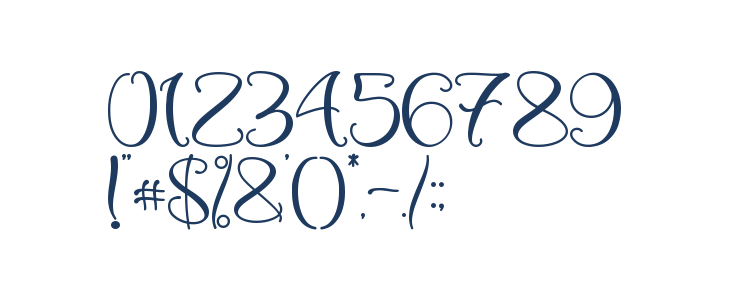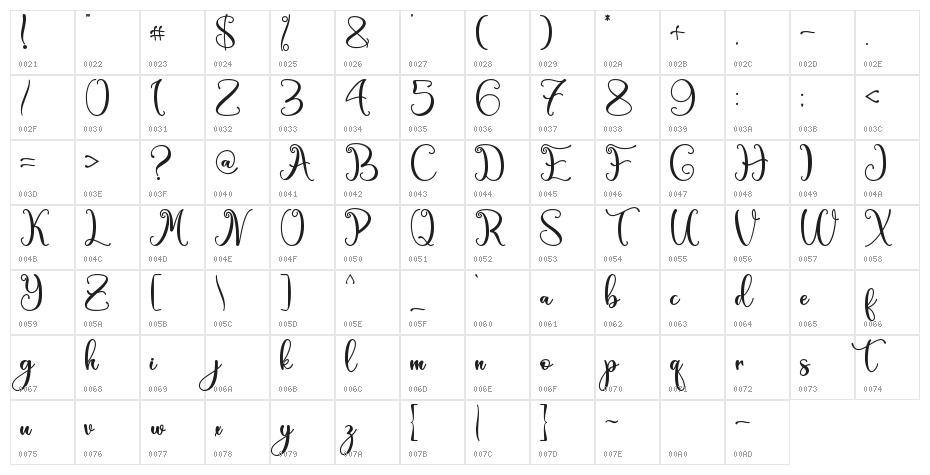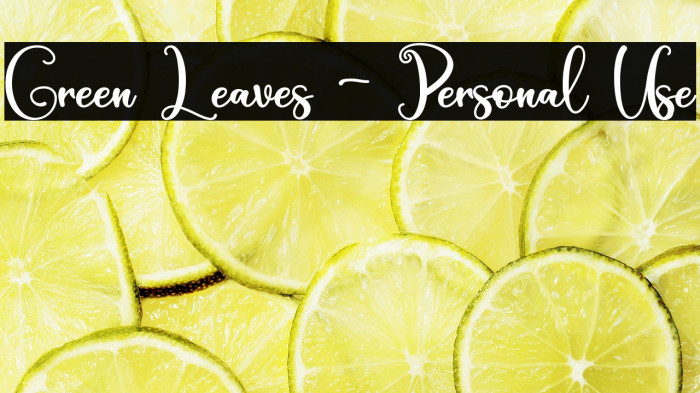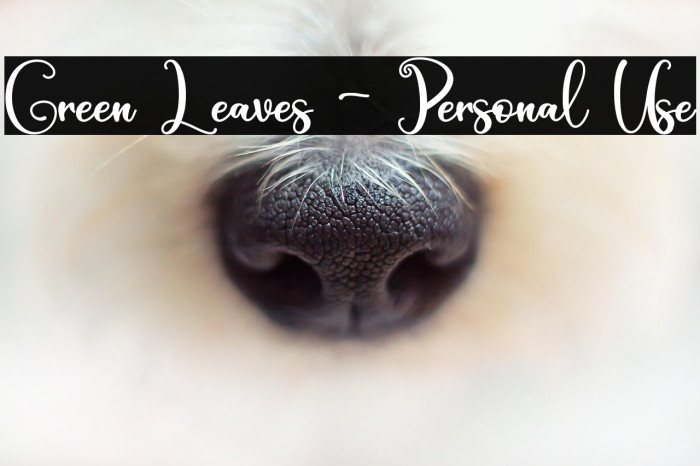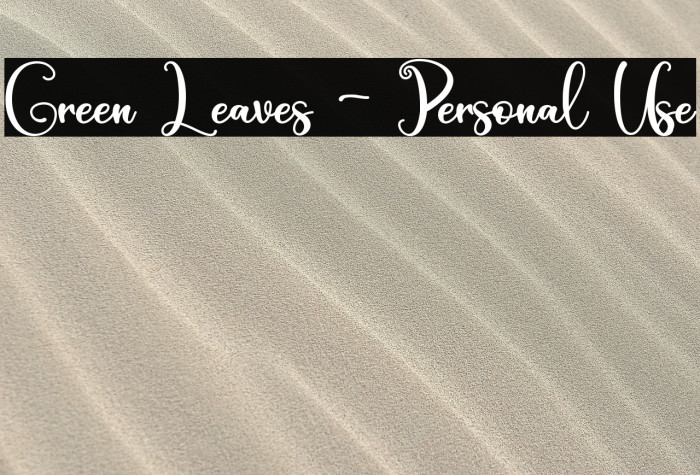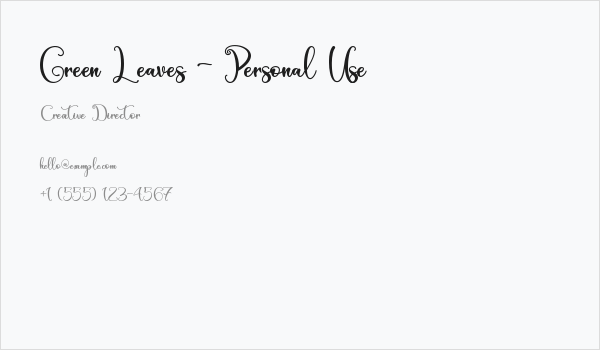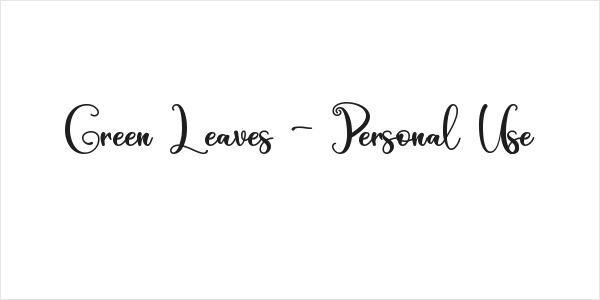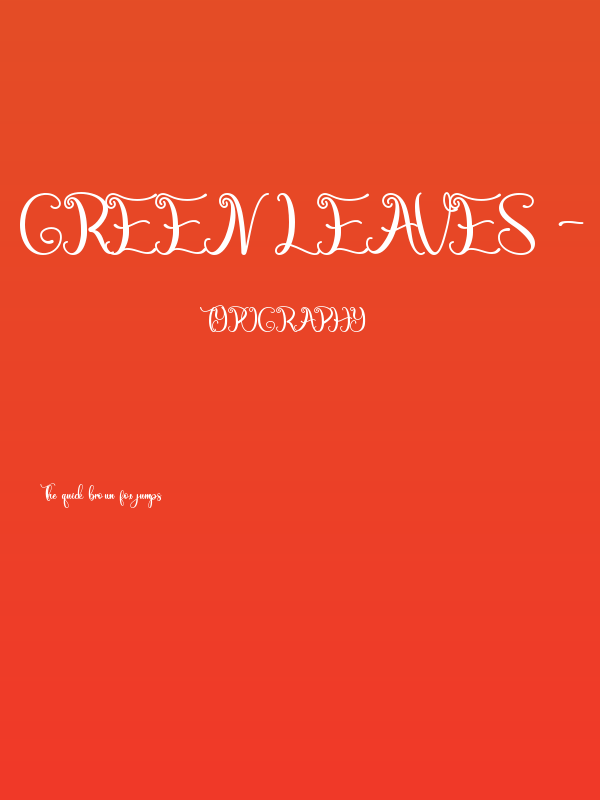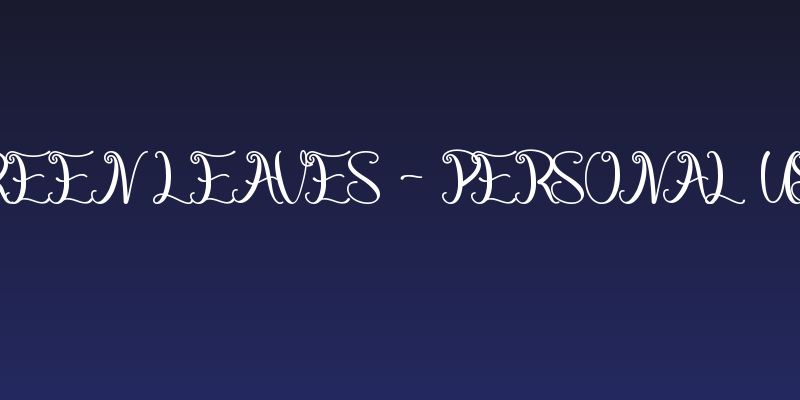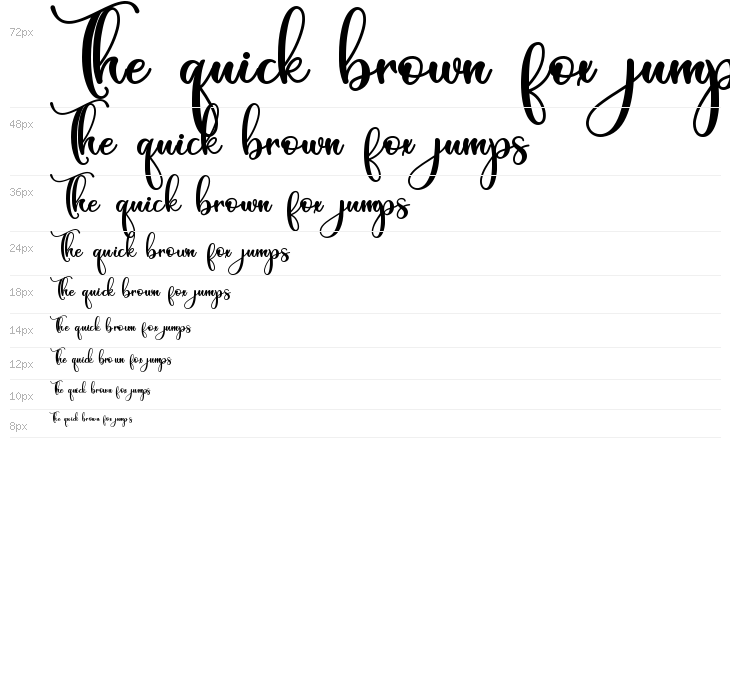
Green Leaves - Personal Use Font
Green Leaves - Personal Use Description
This font features an elegant and decorative script style with intricate swirls and loops, giving it a whimsical and artistic appearance. The uppercase letters are particularly ornate, with flourishes that extend beyond the baseline and cap height, creating a sense of movement and fluidity. The lowercase letters maintain a consistent style, with smooth curves and a slightly more restrained use of embellishments. The numerals are designed to match the overall aesthetic, featuring similar curves and decorative elements. Special characters are included, each crafted with the same attention to detail and artistic flair. This font is ideal for projects that require a touch of elegance and creativity.
Use CaseLogos, Invitations, Decorative Text
Proposed ProjectsIdeal for wedding invitations, greeting cards, branding, and decorative signage.